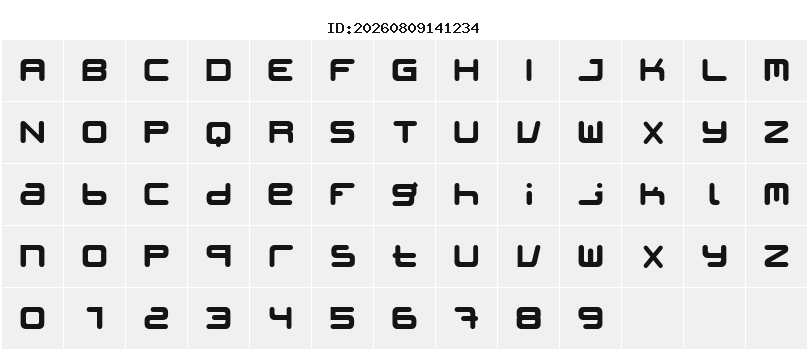
About Patinio iAgency Rounded.ttf
Patinio iAgency Rounded.ttf is a modern, elegant sans-serif font designed for ultimate readability and visual harmony. Perfect for branding, headlines, web design, and print materials.